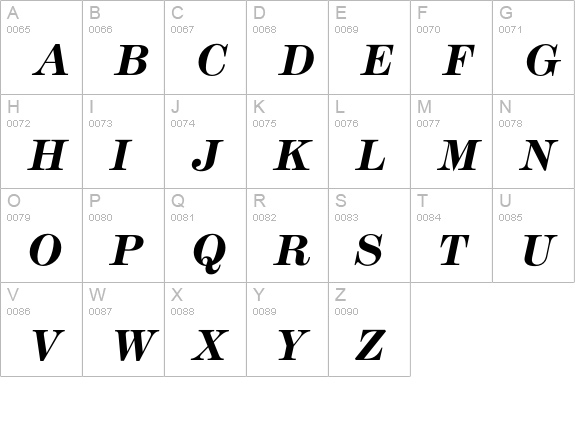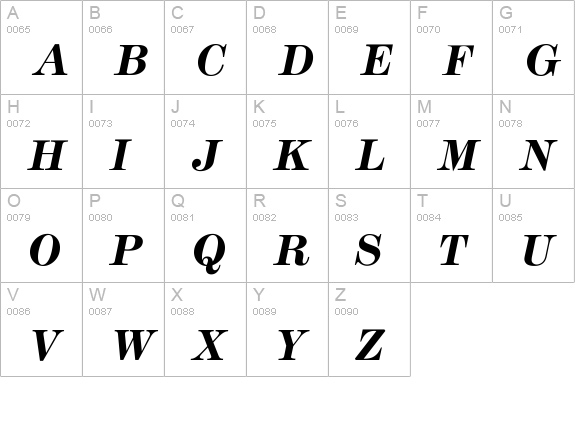
ModernBoldItalic Font Details
Introducing ModernBoldItalic font, a sleek and contemporary typeface that exudes sophistication and elegance. Its bold and italicized design adds a touch of modern flair to any project, making it a versatile choice for a wide range of design applications. The ModernBoldItalic font is perfect for creating eye-catching headlines, stylish logos, and sleek branding materials. Its clean lines and sharp angles give it a professional and polished look that is sure to make a lasting impression. Best of all, the ModernBoldItalic font is available for free download at FontsMarket.com. Simply visit the website to access this stylish and versatile typeface and take your designs to the next level. Download the ModernBoldItalic font today and elevate your projects with its modern and bold style.